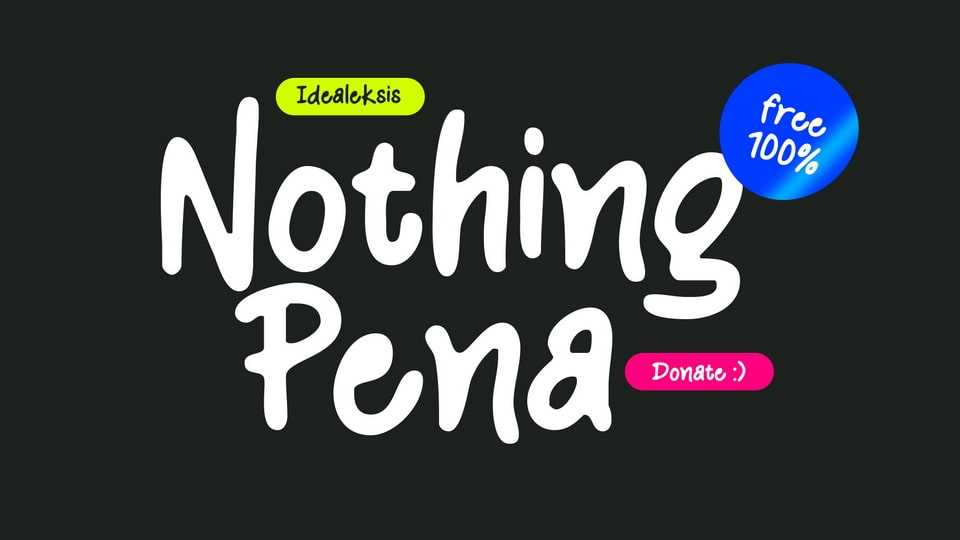
Download Nothing Pena font, a casual and organic hand-drawn typeface that captures the essence of natural beauty and relaxed elegance.
Designer: Ideal Eksis